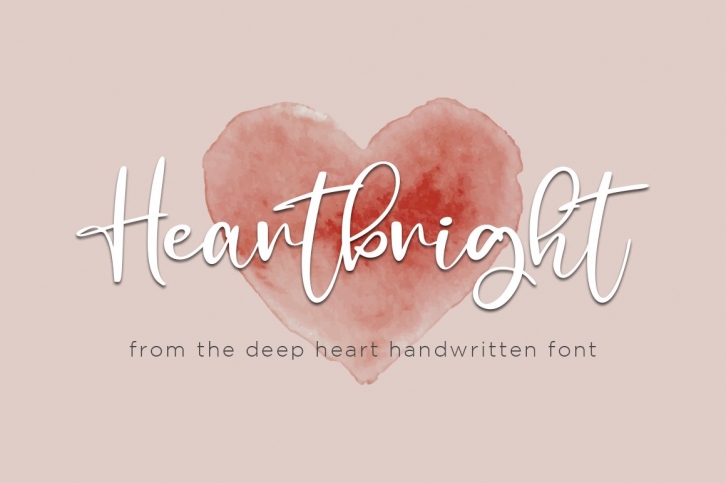
Heartbright Handwritten Script is a great font that was designed by Haksen. Imagine the amount of combinations you can create using this font! The archive is 6.88 MB and it was released on August 17, 2020. Heartbright Handwritten Script looks beautiful on wedding invitations, greeting cards, logos, posters, labels, t-shirt designs, logos, business cards and is perfect for use in ink or watercolor works, fashion, magazines, packaging and food menus, children's books and more!